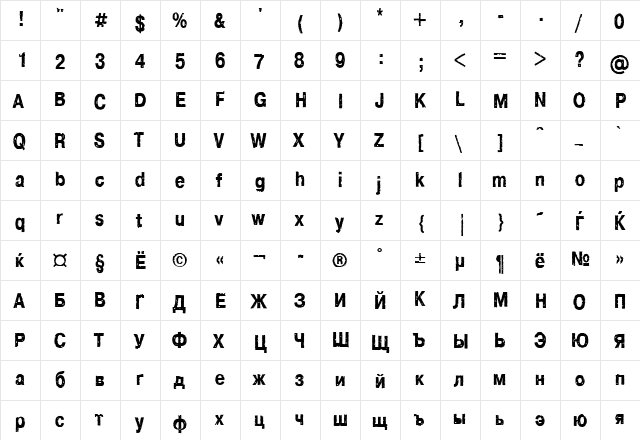
CrashC Regular
Design Context for CrashC Typeface
CrashC offers clean, dependable letterforms without strong stylistic allegiance, making it a practical choice for designers who need flexibility.
Pro Tip: Pair CrashC with a font of contrasting weight or personality to build a more expressive typographic hierarchy.